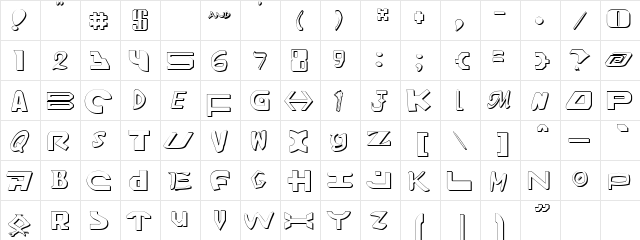
Amalgam Shadow Shadow
Design Context for Amalgam Shadow Typeface
Amalgam Shadow is built around its visual character rather than neutral utility — its distinctive forms are designed to make an impression at display sizes.
Font Pairing: Pair with a clean neutral sans-serif for body copy to let Amalgam Shadow's character lead without overwhelming the composition.
Pro Tip: Treat Amalgam Shadow as the centrepiece of your typographic hierarchy. One strong heading set in a decorative face can carry an entire layout.